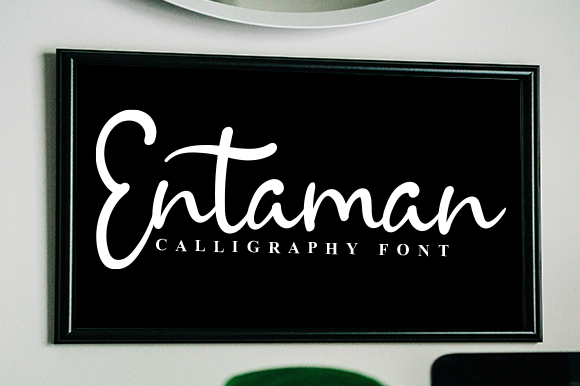
Welcome to the world of Entaman Script, the magical handwritten font that will cast a spell on all your creative endeavors. We've harnessed the power of elegance and authenticity to create this enchanting font, just for you.
Step into a realm of timeless beauty and captivating calligraphy. Entaman seamlessly captures the allure of classic design while maintaining a welcoming, approachable charm. Whether you're a seasoned designer or just starting your journey, Entaman will effortlessly elevate your work to new heights.
With Entaman Script, you can craft captivating logos that draw the eye and make a statement. Its allure extends to stunning invitations, where every word dances across the page with grace and precision. Unleash your creativity in designing heartfelt greeting cards, where your sentiments bloom with a touch of magic.
Entaman's versatility knows no bounds. It gracefully adorns websites, adding an artistic flair to every click. Social media posts and graphics shimmer with a new vibrancy, captivating your audience with each scroll. Whether you're designing marketing materials or expressing yourself through art, Entaman adds a touch of enchantment that will leave them spellbound.
Let your imagination run wild as you explore the infinite possibilities of Entaman Script. Dive into the world of branding, where logos and business cards exude an aura of elegance. Journey into the realm of fashion, where clothing and accessories whisper tales of sophistication. Create eye-catching posters and flyers that ignite a spark of curiosity in every viewer. With Entaman, your creations will capture hearts and minds, leaving an unforgettable impression.
Entaman Script isn't just a font; it's an experience. It's a chance to make your designs shine with a touch of magic, to embrace the beauty of handwritten elegance. Discover the endless possibilities that await you within the strokes of Entaman Script.